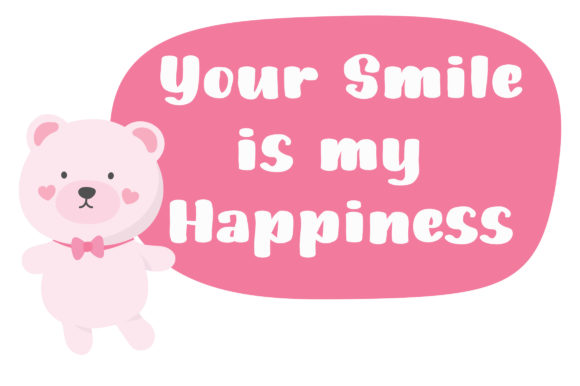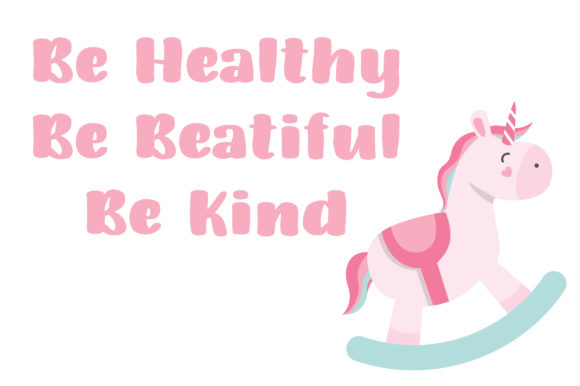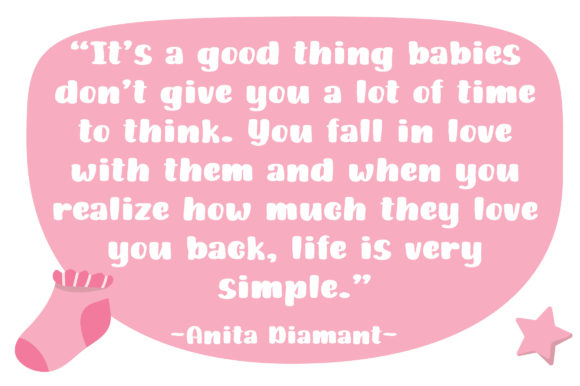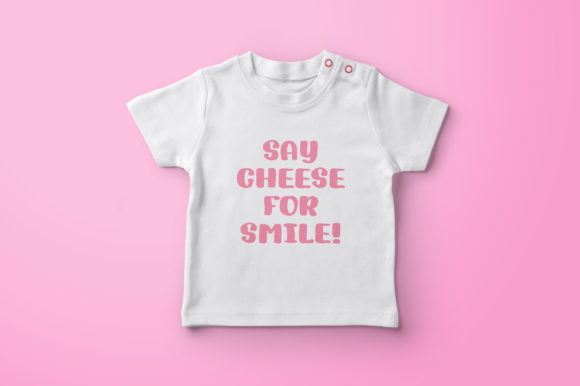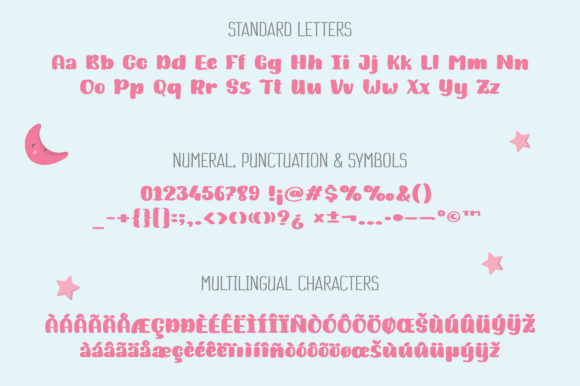
Sweet Baby Font
About Sweet Baby Font
Sweet Baby is a chubby handwritten font with a bold, authentic twist. It will add a personal and joyful spark to any design project!